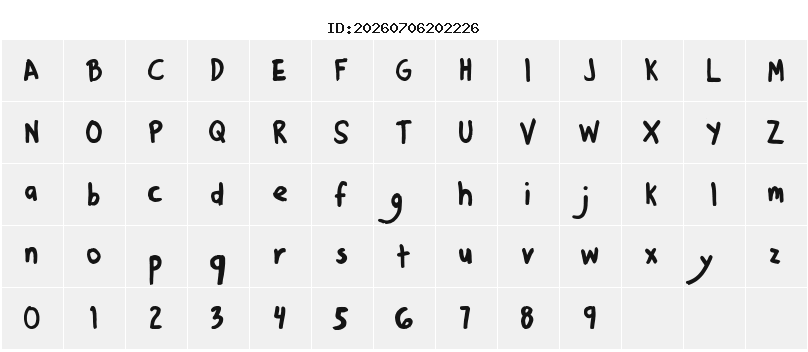
Denne Kitten Heels Preview
• Font Name: Denne Kitten Heels
• Designer: Denise Bentulan
About Denne Kitten Heels.ttf
Denne Kitten Heels.ttf is a modern, elegant sans-serif font designed for ultimate readability and visual harmony. Perfect for branding, headlines, web design, and print materials.